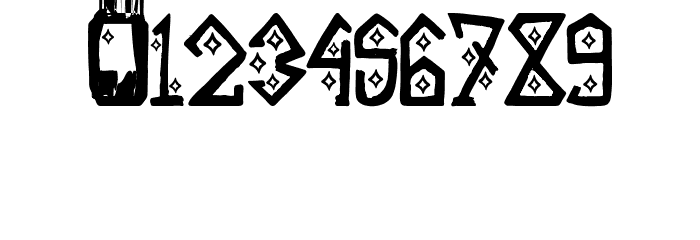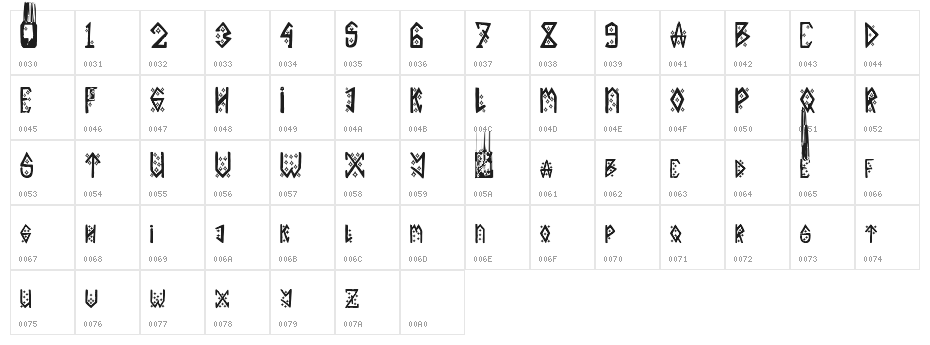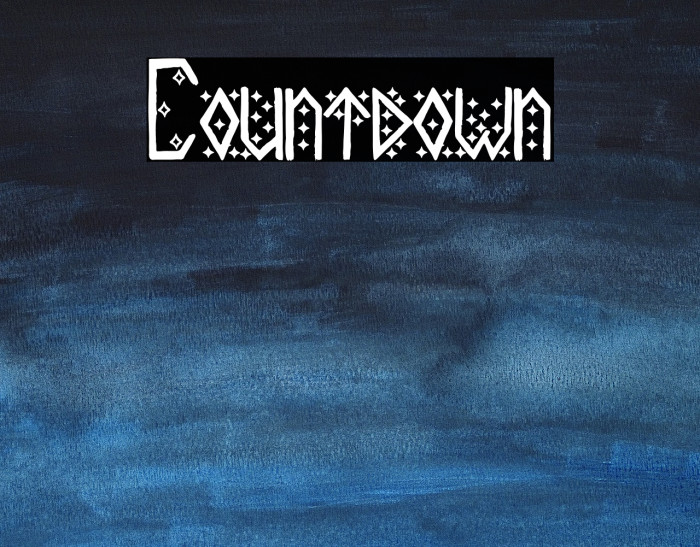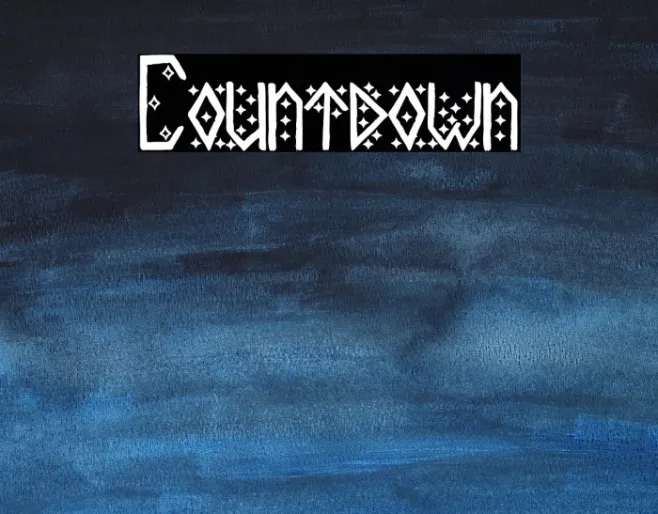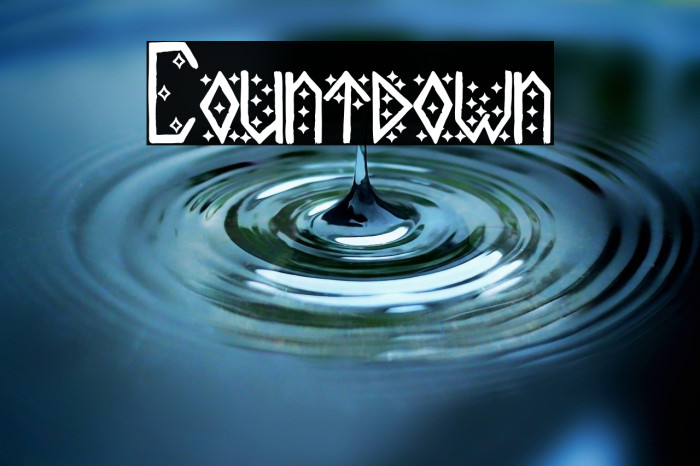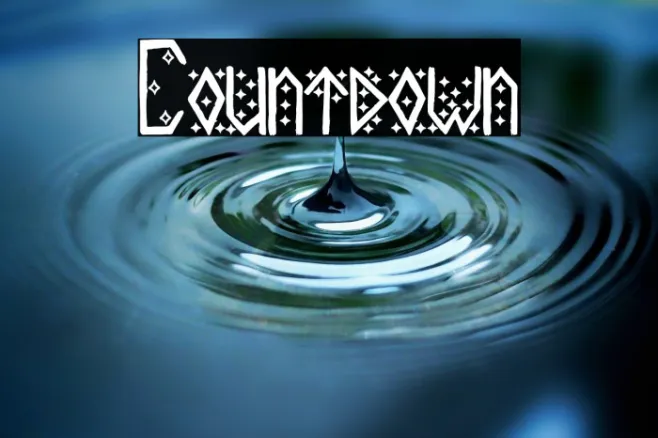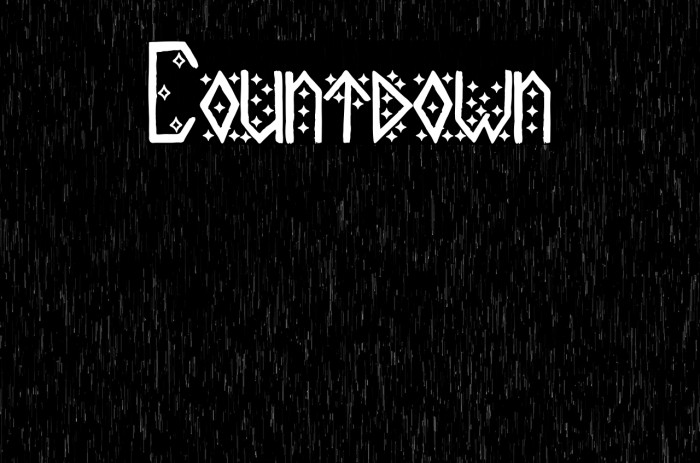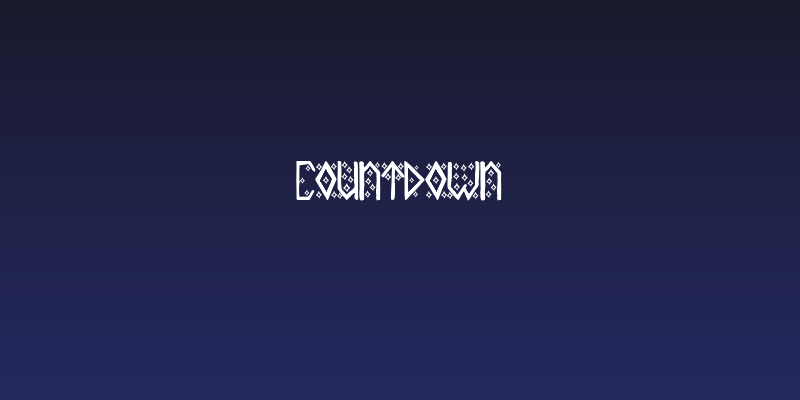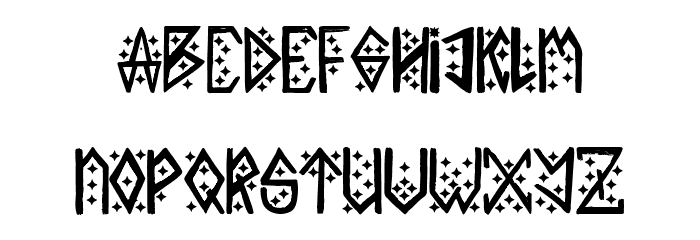
Countdown Font
Countdown Description
This font features a bold and decorative style with intricate patterns and geometric shapes embedded within each character. The uppercase and lowercase letters are designed with a consistent theme of angular lines and diamond-like embellishments, creating a unique and eye-catching appearance. The numbers follow the same decorative pattern, ensuring uniformity across all characters. This font's distinct style makes it suitable for projects that require a strong visual impact.
| Proposed Projects | Ideal for posters, album covers, video game graphics, and themed event invitations. |